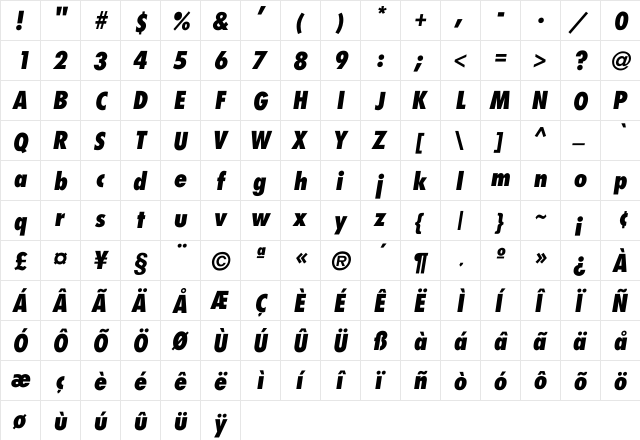
Futura-CondensedExtraBold-Italic Regular Font Preview
Design Context for Futura-CondensedExtraBold-Italic Typeface
Futura-CondensedExtraBold-Italic channels digital-age aesthetics through its sharp, structured letterforms — ideal for brands that want to signal innovation. Its italic angle brings a sense of urgency and motion to the letterforms. Its bold stroke weight gives it real presence on the page. Its narrow stance lets it pack a punch even in space-constrained designs.
Pro Tip: Use Futura-CondensedExtraBold-Italic in combination with a neutral sans for body text. Let it define the brand voice in headlines while keeping reading comfortable elsewhere.